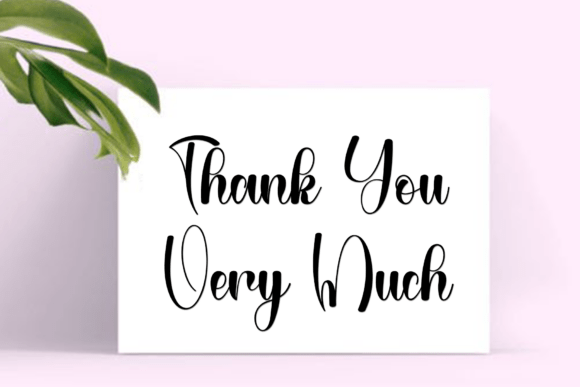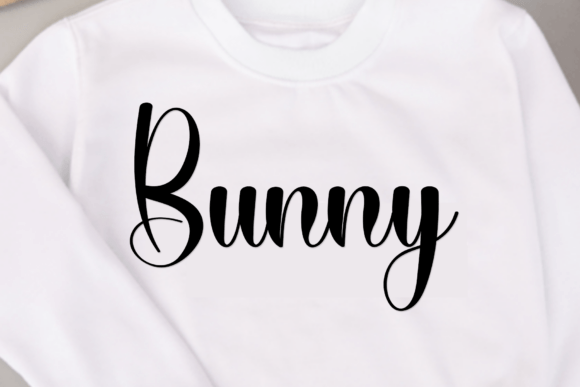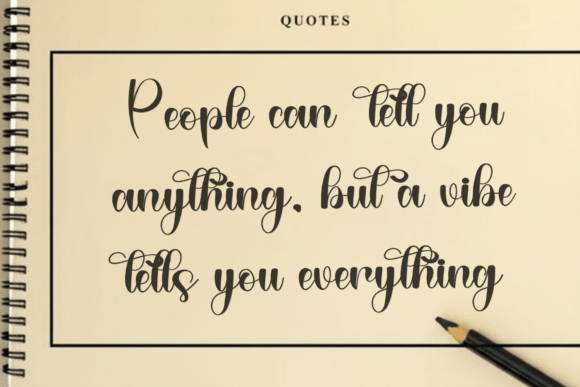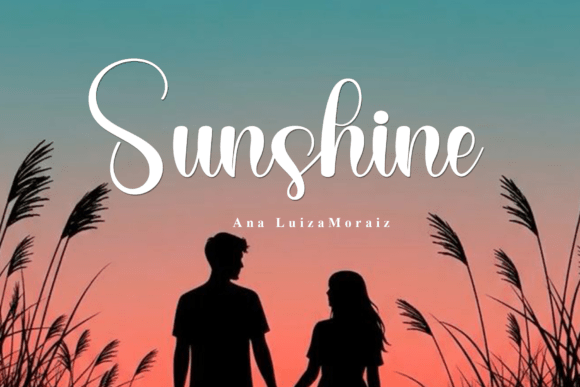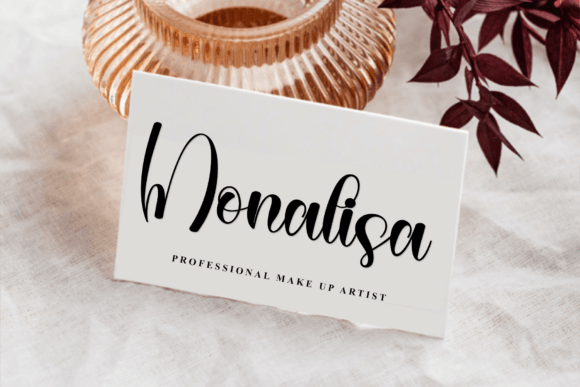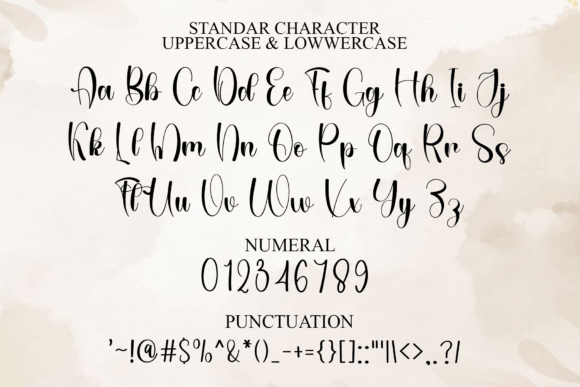
Introducing Dear Darling Font: A Festive and Merry Typeface for the Holiday Season
The holiday season is upon us, and with it comes the joy of creating festive and merry designs that capture the spirit of the season. As a designer or crafter, you’re likely on the lookout for a typeface that can add a touch of enchantment to your projects. Look no further than Dear Darling Font, a beautiful and whimsical font that’s perfect for greeting cards, gift tags, and holiday-themed projects.
Dear Darling Font is a decorative typeface that’s specifically designed to evoke the magic of the holiday season. With its intricate details and whimsical flair, this font is sure to bring a cheerful and nostalgic ambiance to your words. Whether you’re creating a holiday greeting card, a gift tag, or a festive banner, Dear Darling Font is the perfect choice.
Dear Darling Font is a versatile typeface that’s perfect for designers and crafters alike. With its PUA encoding, you can access all of the amazing glyphs and ligatures with ease, making it simple to create beautiful and intricate designs. Whether you’re a professional designer or a crafty hobbyist, this font is sure to become a staple in your collection.
Key Features of Dear Darling Font
- Festive and Merry Design: Dear Darling Font is specifically designed to capture the spirit of the holiday season, making it perfect for festive and merry designs.
- Decorative Elements: This font features intricate details and whimsical flair, adding a touch of enchantment to your designs.
- PUA Encoded: With PUA encoding, you can access all of the amazing glyphs and ligatures with ease, making it simple to create beautiful and intricate designs.
- Perfect for Holiday Projects: Dear Darling Font is perfect for holiday-themed projects, including greeting cards, gift tags, and festive banners.
Uses for Dear Darling Font
Dear Darling Font is a versatile typeface that can be used in a variety of ways. Here are just a few ideas to get you started:
- Greeting Cards: Create beautiful and festive holiday greeting cards with Dear Darling Font.
- Gift Tags: Add a touch of magic to your gift tags with this whimsical font.
- Holiday Banners: Create a festive banner with Dear Darling Font to hang in your home or office.
- Social Media Graphics: Use Dear Darling Font to create festive and merry social media graphics to share with your friends and followers.
Tips for Using Dear Darling Font
Here are a few tips for using Dear Darling Font in your designs:
- Experiment with Different Sizes: Try out different font sizes to see how Dear Darling Font looks in different contexts.
- Pair with Other Fonts: Pair Dear Darling Font with other fonts to create a unique and interesting design.
- Use with Holiday-themed Graphics: Use Dear Darling Font with holiday-themed graphics, such as snowflakes or holly, to create a festive design.